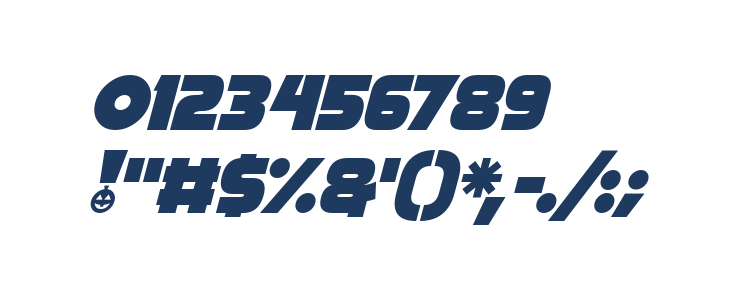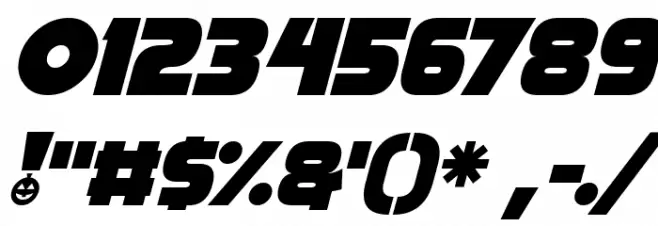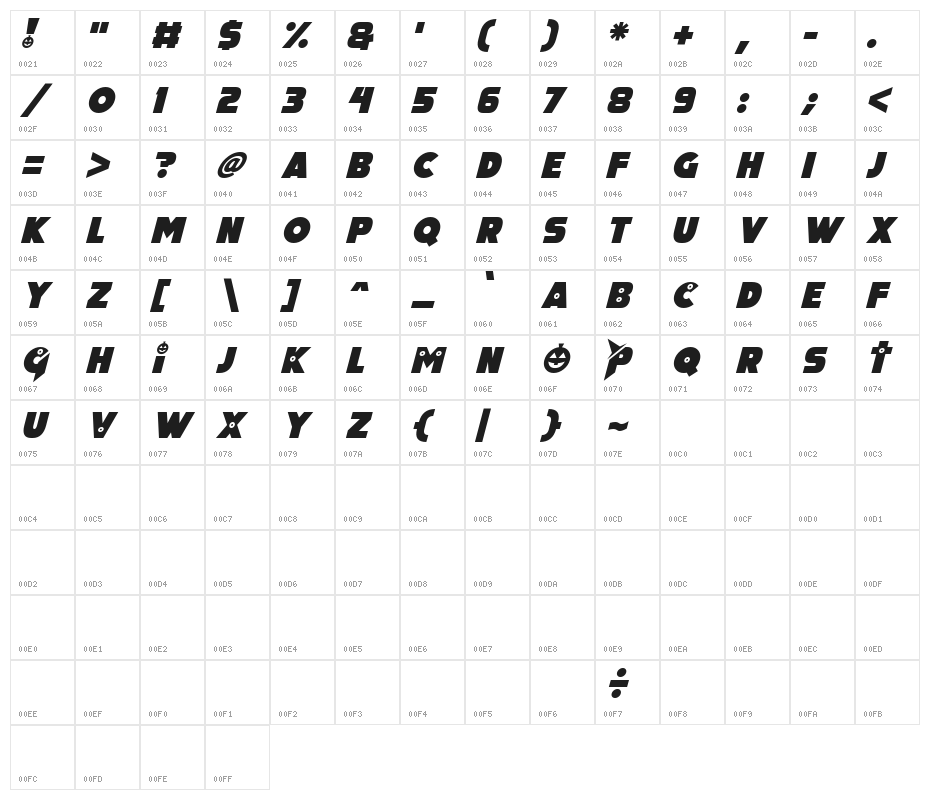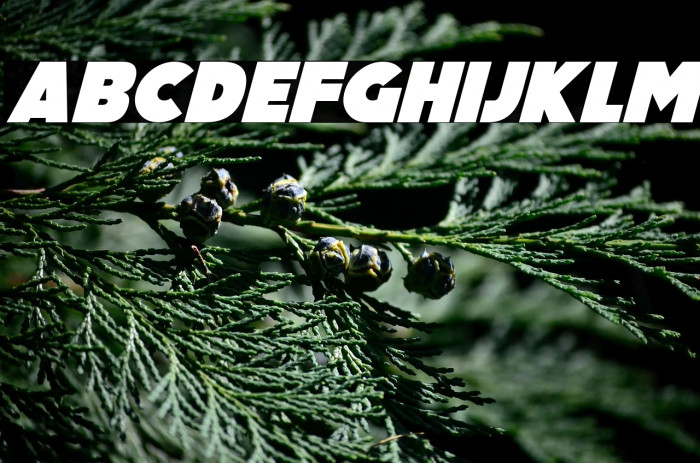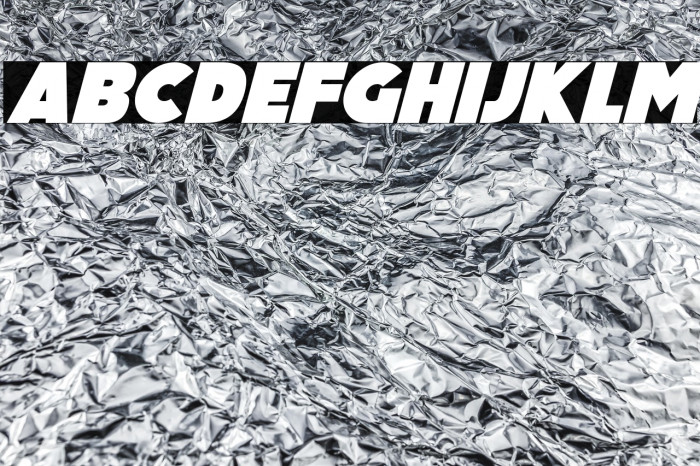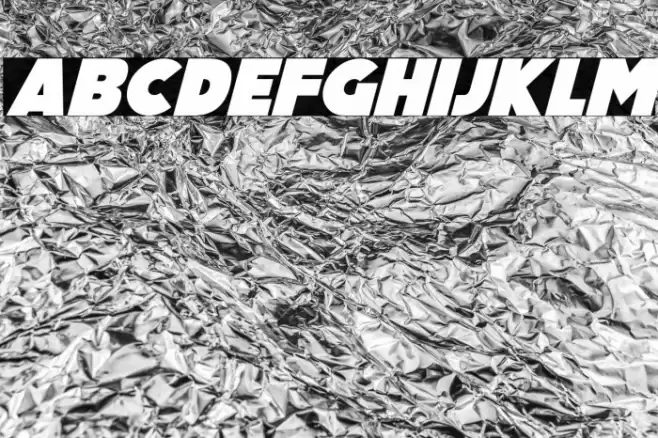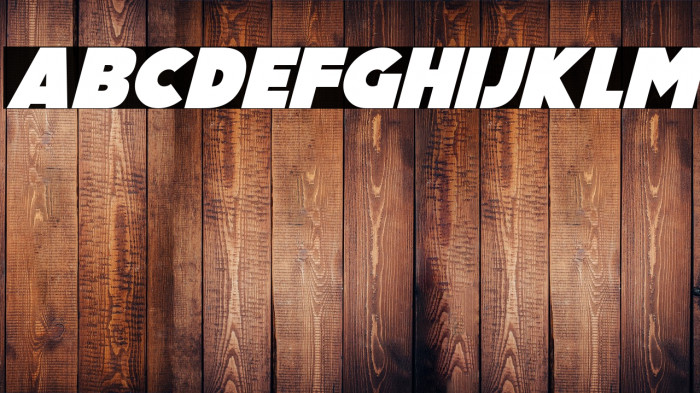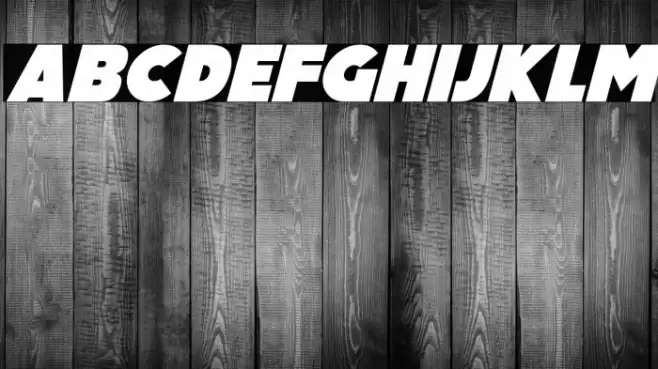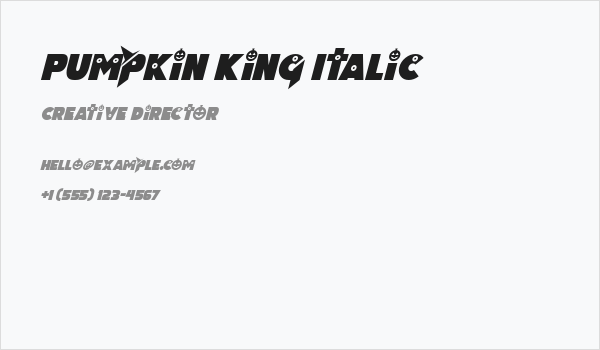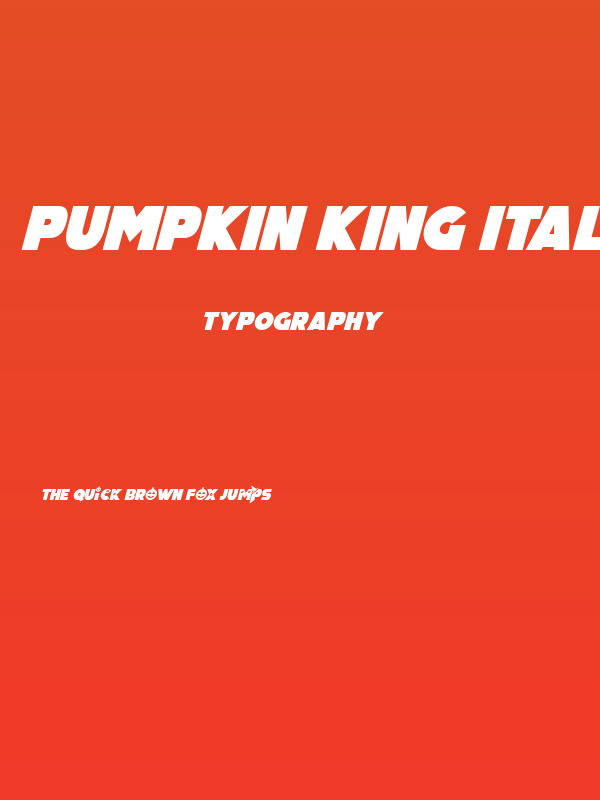
Pumpkin King Italic Font
Pumpkin King Italic Description
This playful and bold font features a Halloween-inspired theme with unique character embellishments. Each letter is designed with a quirky, spooky twist, incorporating elements like jack-o'-lantern faces and ghostly motifs. The font has a strong, bold presence with a slight italic slant, adding a dynamic feel to the text. The characters are tightly spaced, enhancing the compact and impactful appearance. The numbers and special characters maintain the whimsical style, making it perfect for festive and themed designs.